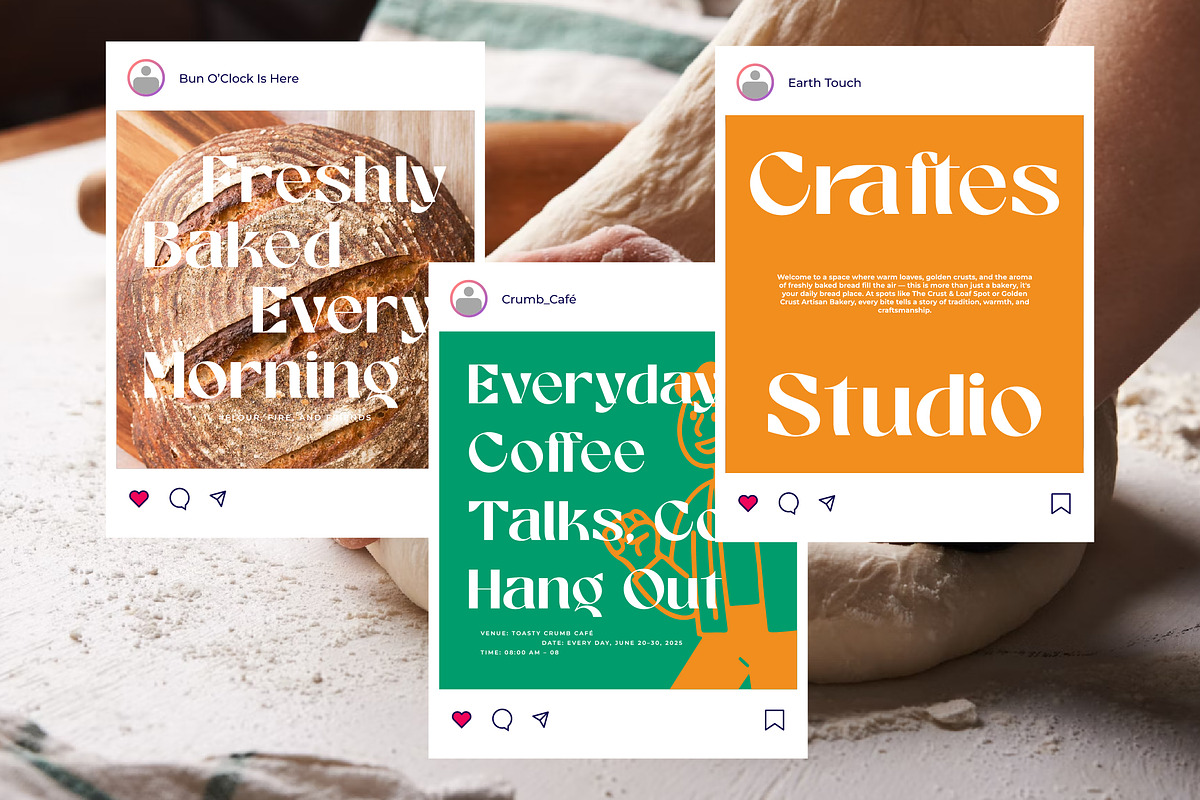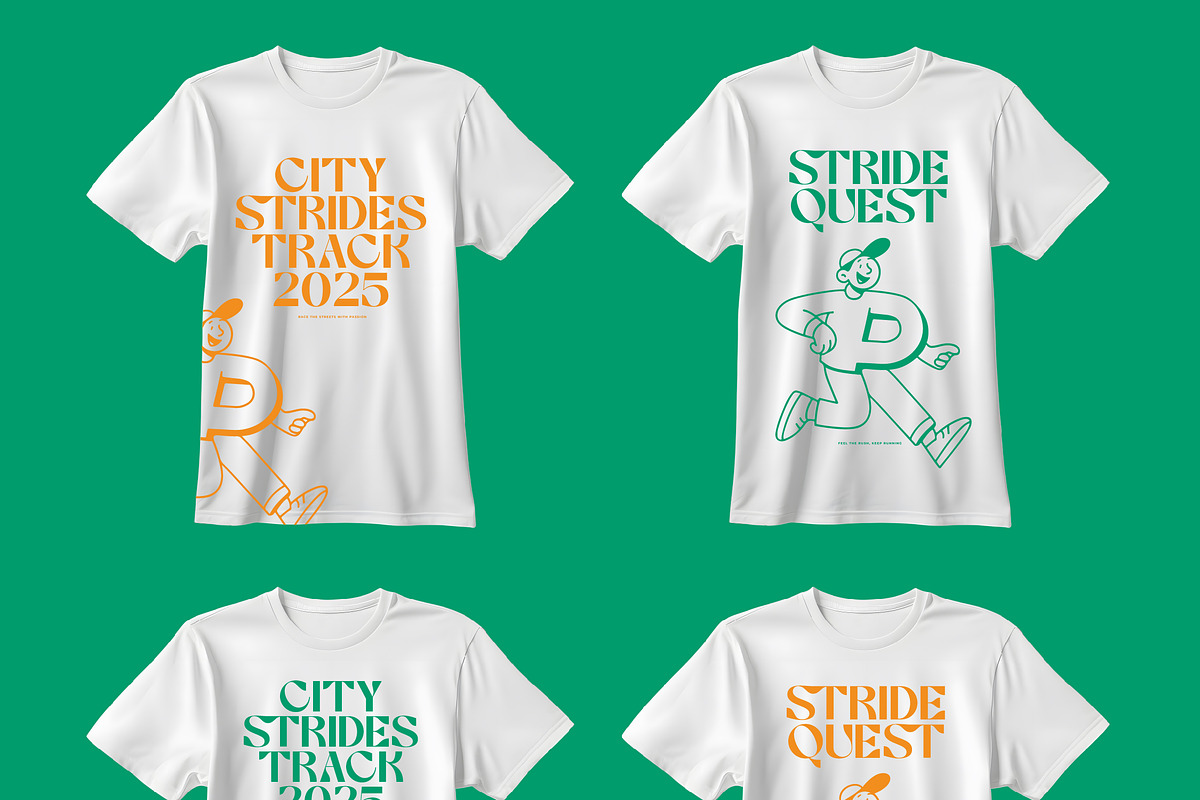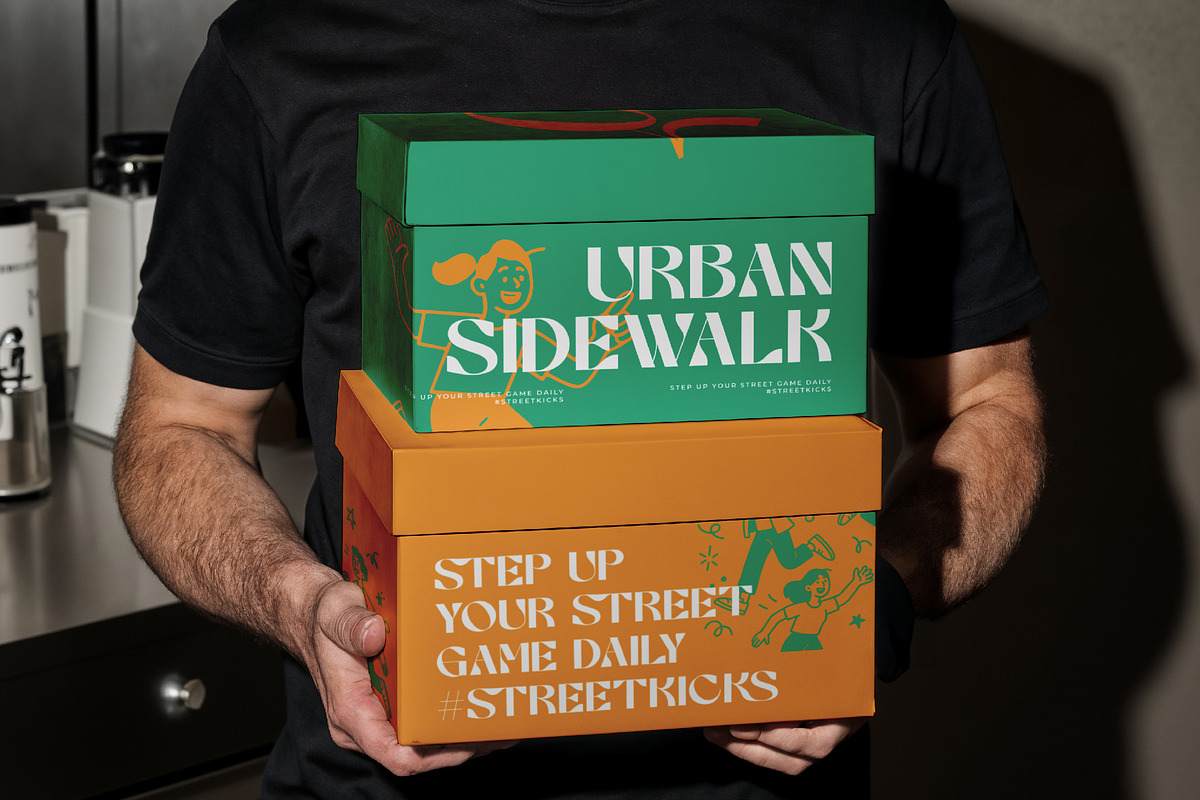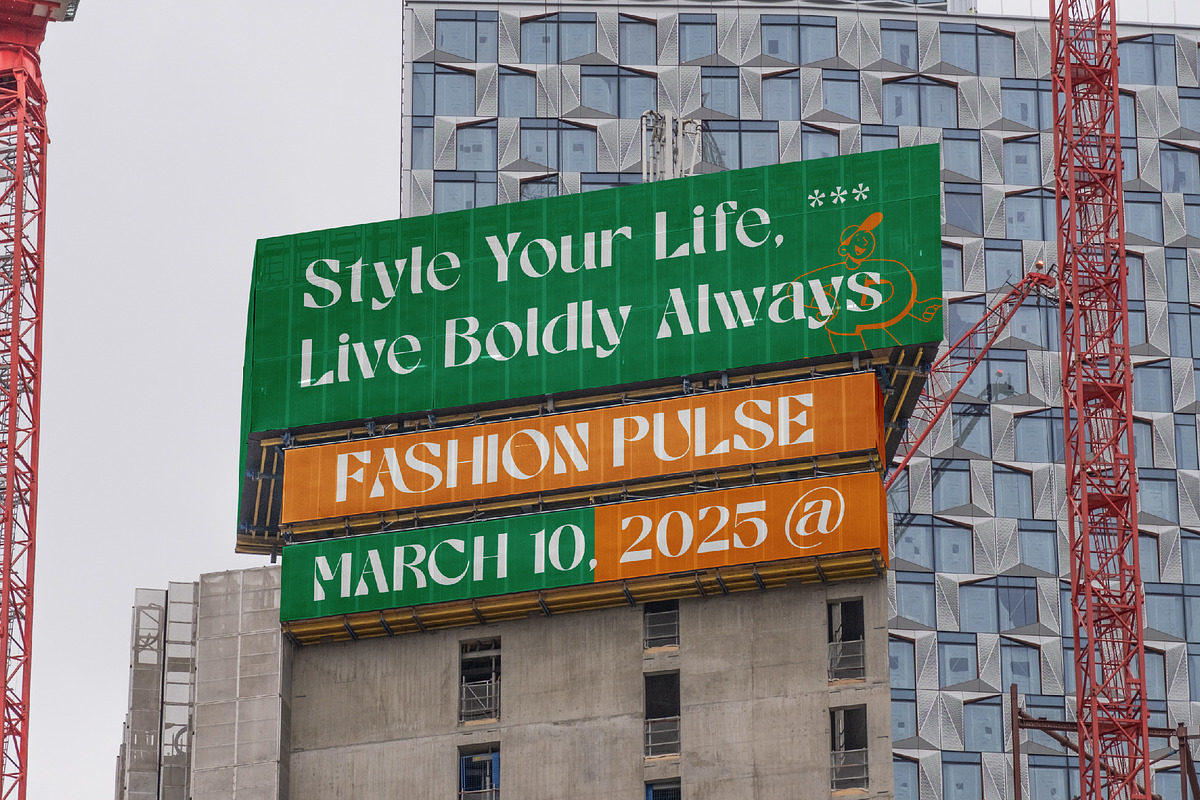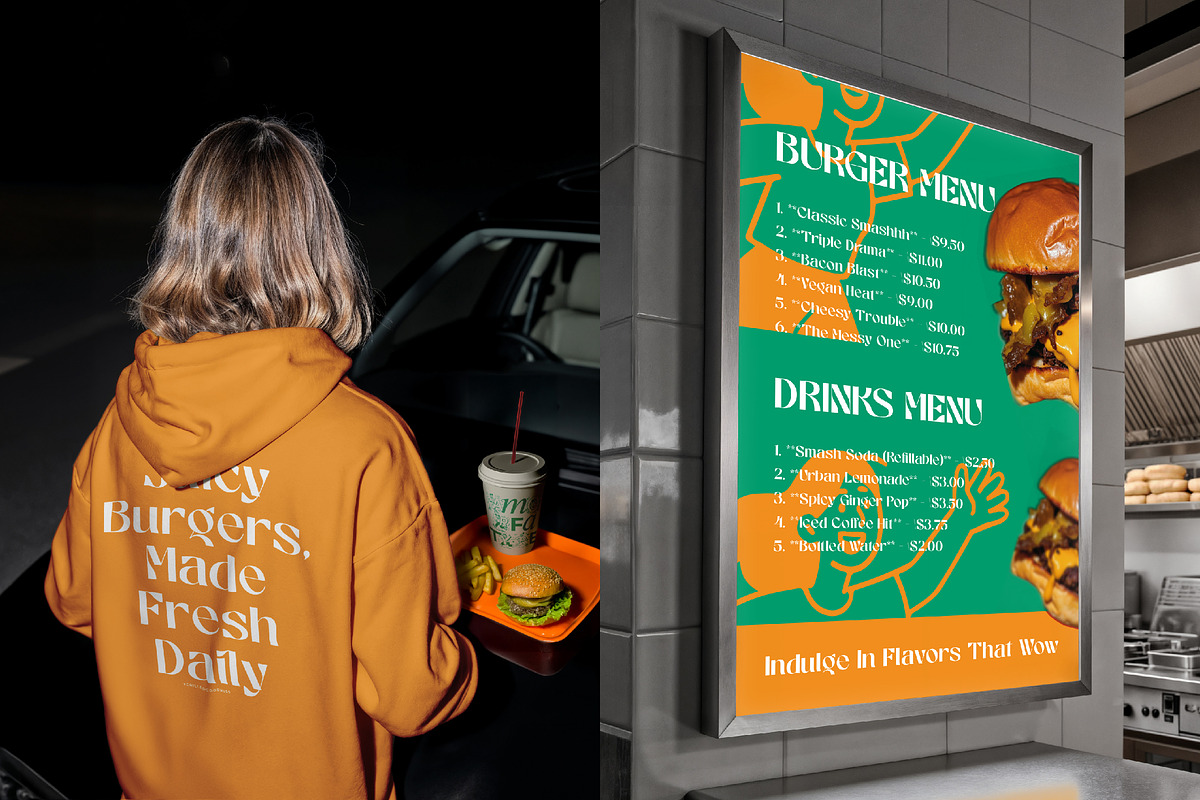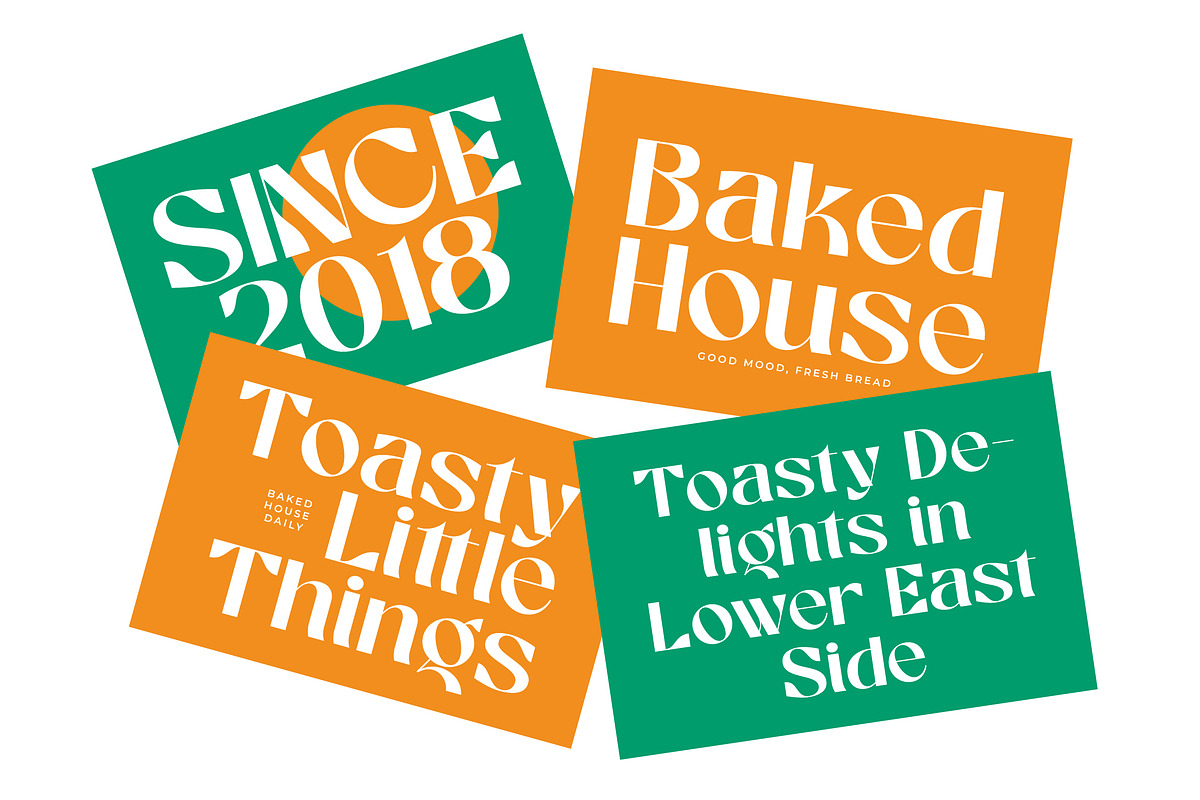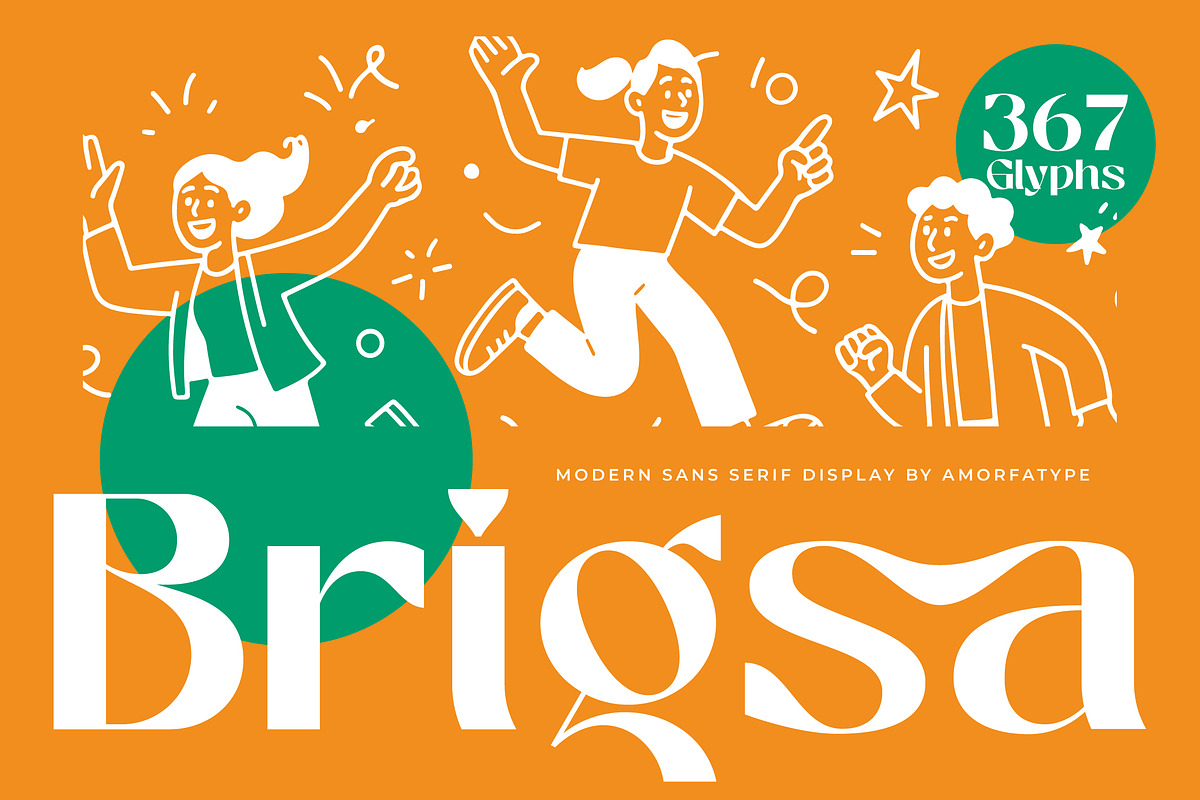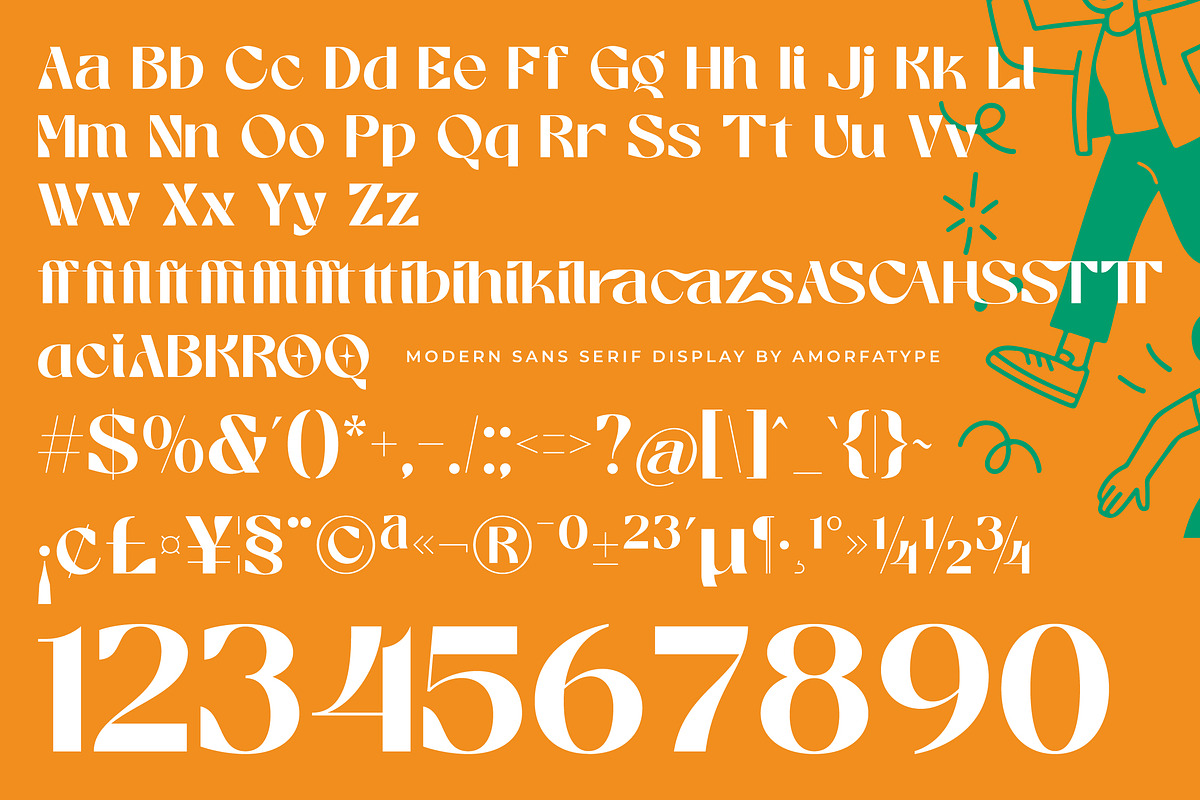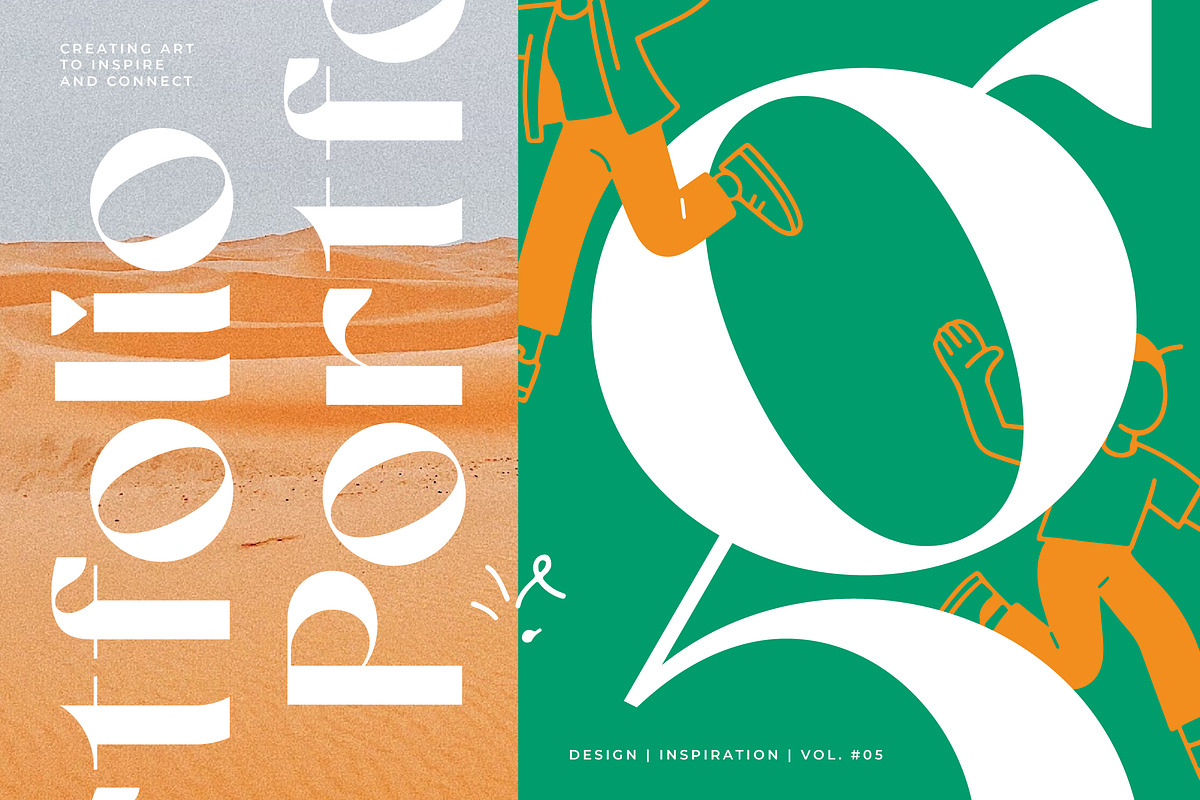
Brigsa A Modern Sans Serif
Brigsa – A Modern Sans Serif Display Font by Amorfatype
Brigsa is a bold and stylish modern sans serif display font designed to make a strong statement. With its clean lines, geometric balance, and contemporary character shapes, Brigsa delivers clarity and strength in every letterform. This typeface is crafted for impact — perfect for visual identities that require both elegance and authority.
Ideal for branding, editorial headlines, web design, and modern packaging, Brigsa offers versatility across digital and print platforms. Its precise structure and minimalist aesthetic make it suitable for both bold display settings and refined design projects. Brigsa is your go-to font when you want a fresh, modern sans serif with a confident tone.
- Clean, Minimalist Letterforms